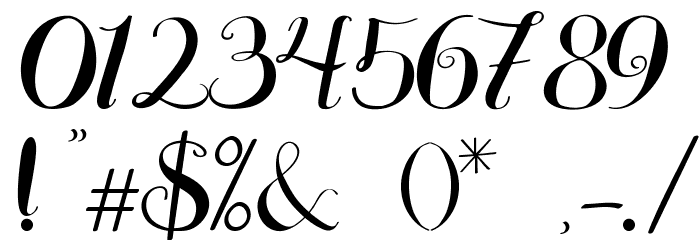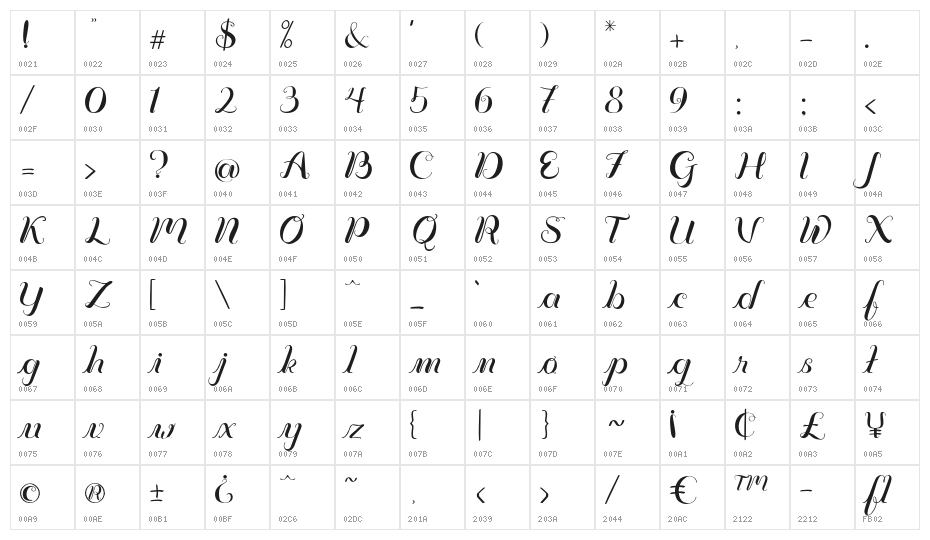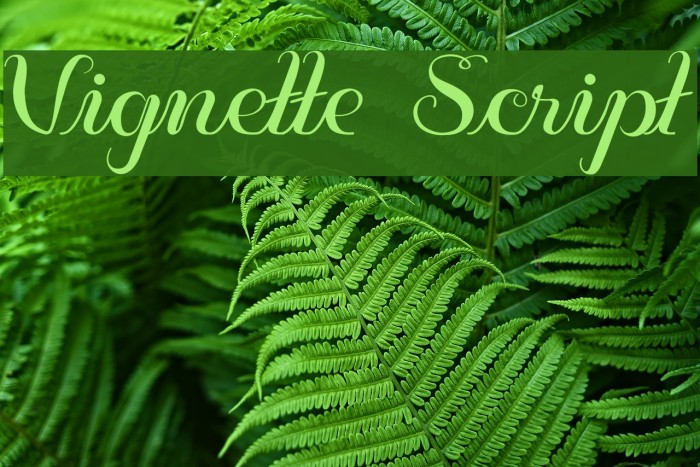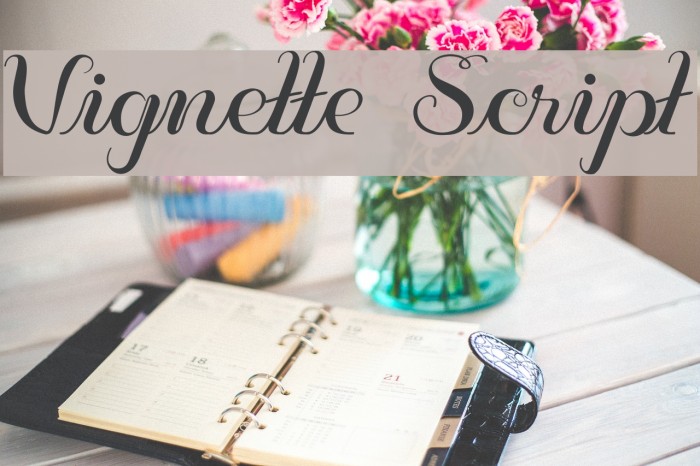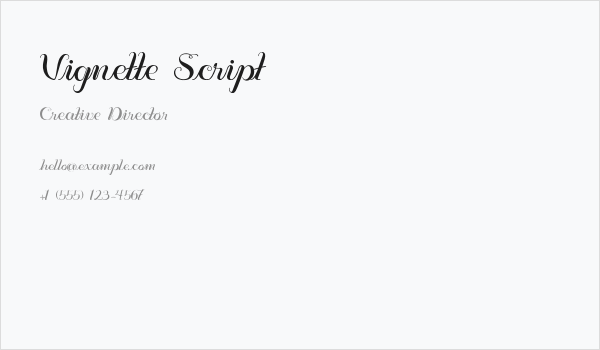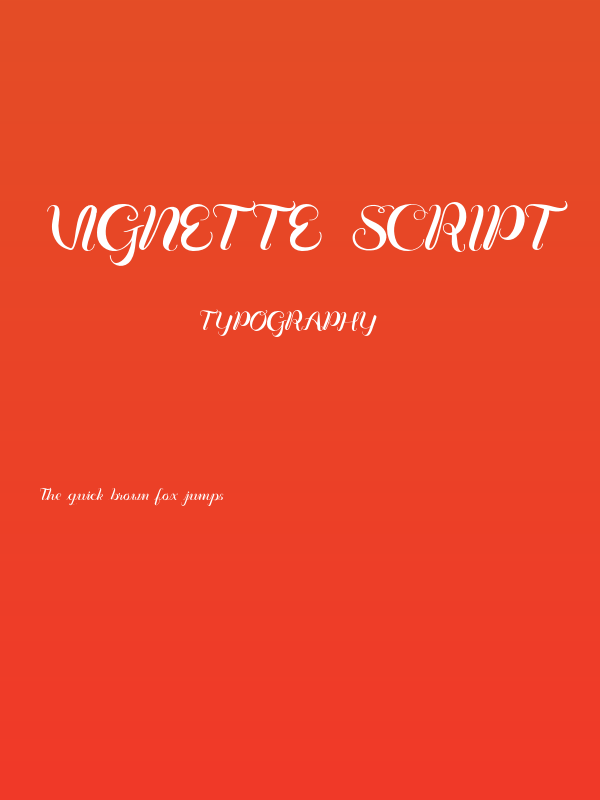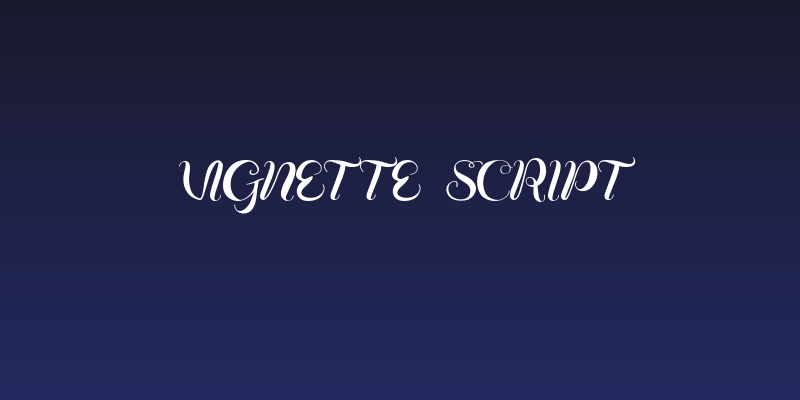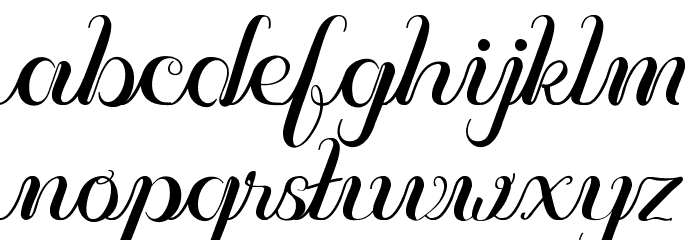
Vignette Script Font
Vignette Script Description
This elegant script font features flowing, cursive letterforms with a classic and sophisticated appearance. The uppercase letters are adorned with delicate swashes, adding a touch of flourish and grace. The lowercase letters maintain a smooth and connected style, enhancing readability while preserving the font's decorative nature. The numerals are consistent with the overall script style, offering a harmonious blend with the alphabet. Special characters are thoughtfully designed to match the font's aesthetic, making it suitable for a variety of creative applications. The font's high contrast in stroke thickness adds to its dramatic and eye-catching appeal.
| Proposed Projects | Ideal for wedding invitations, elegant branding, greeting cards, and upscale packaging. |